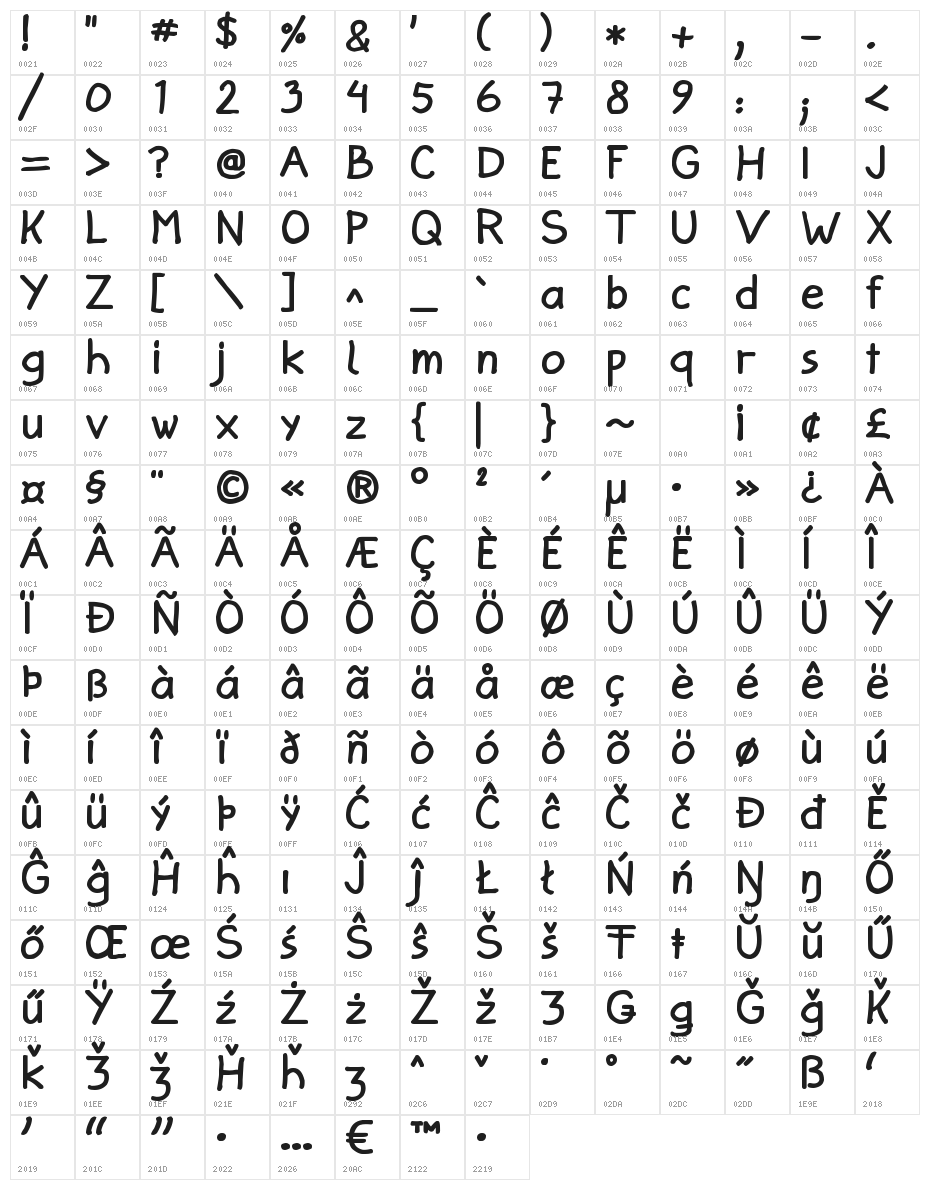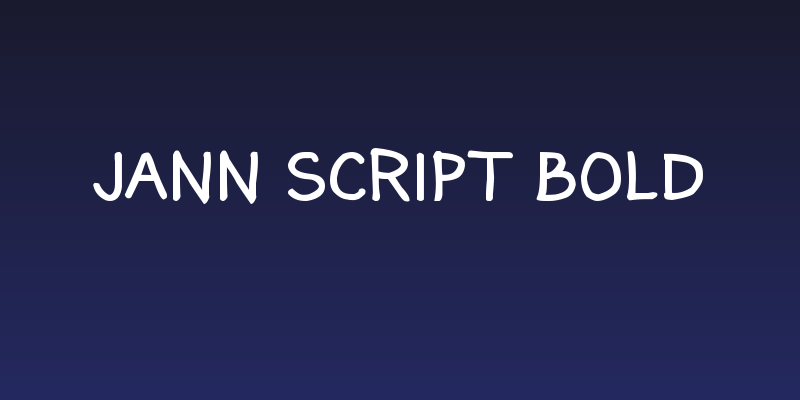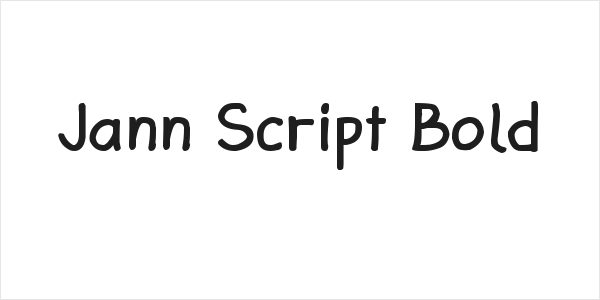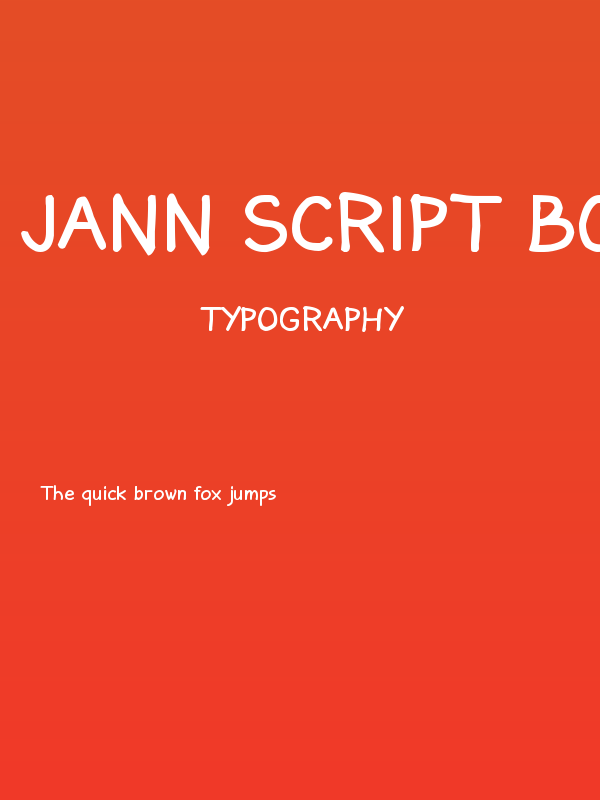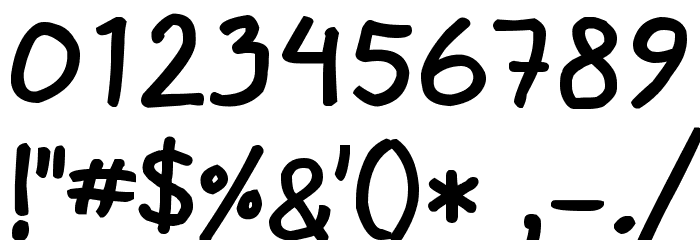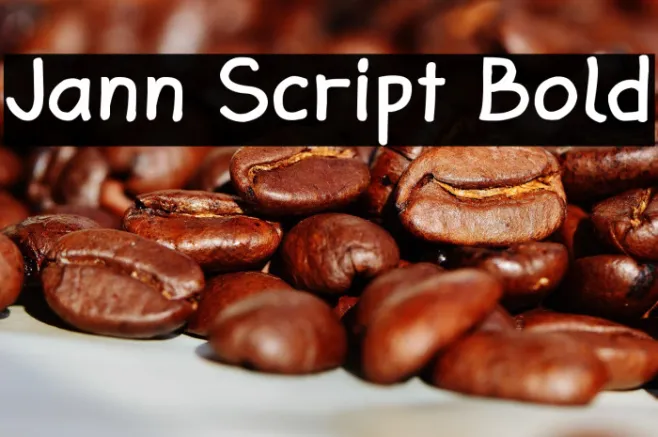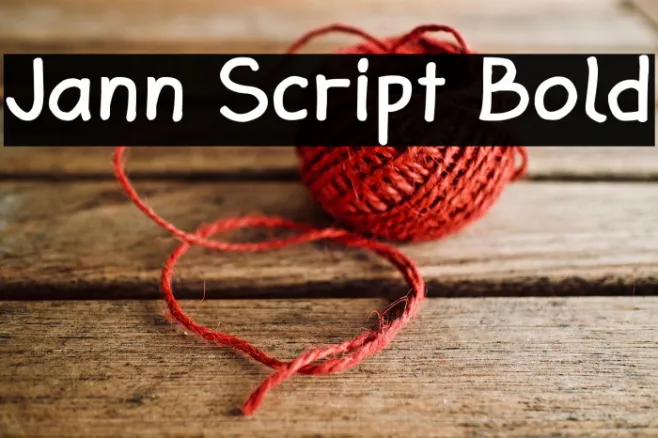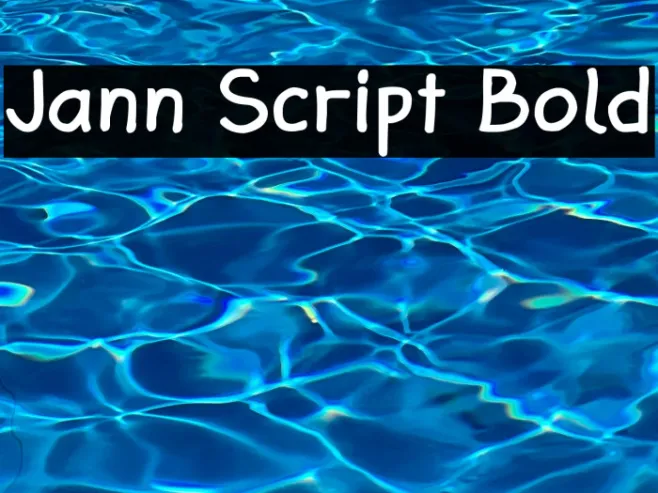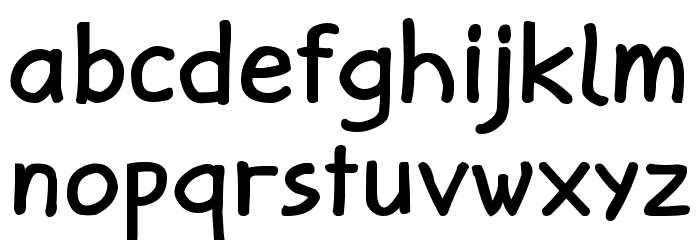
Jann Script Bold Font
Jann Script Bold Description
This font features a playful and casual script style, characterized by its bold and rounded strokes. The letters are slightly slanted, giving a handwritten feel that is both approachable and friendly. The uppercase and lowercase letters maintain a consistent flow, with smooth curves and a uniform thickness that enhances readability. The numerals and special characters are designed to match the overall style, ensuring a cohesive look across all text elements. This font is ideal for projects that require a personal touch, such as invitations, greeting cards, or branding materials that aim to convey warmth and creativity.